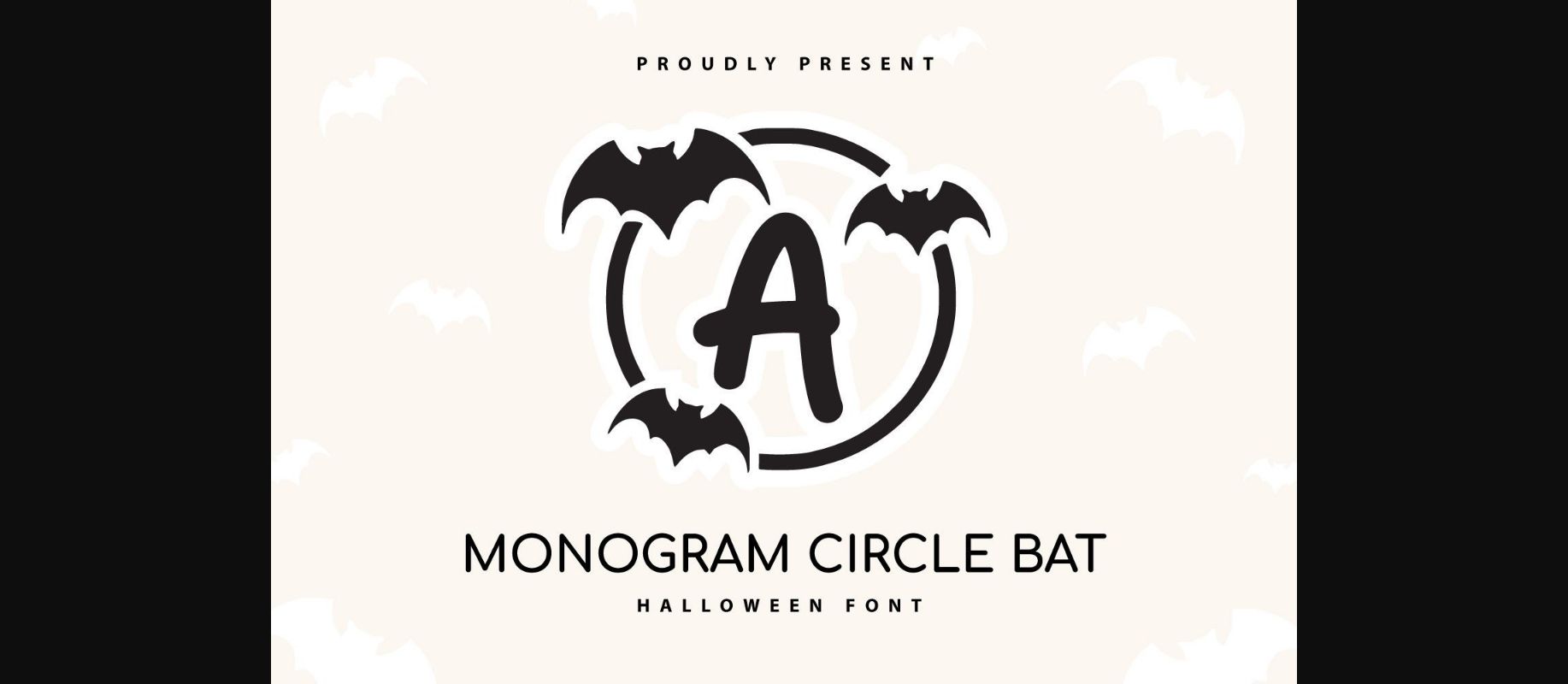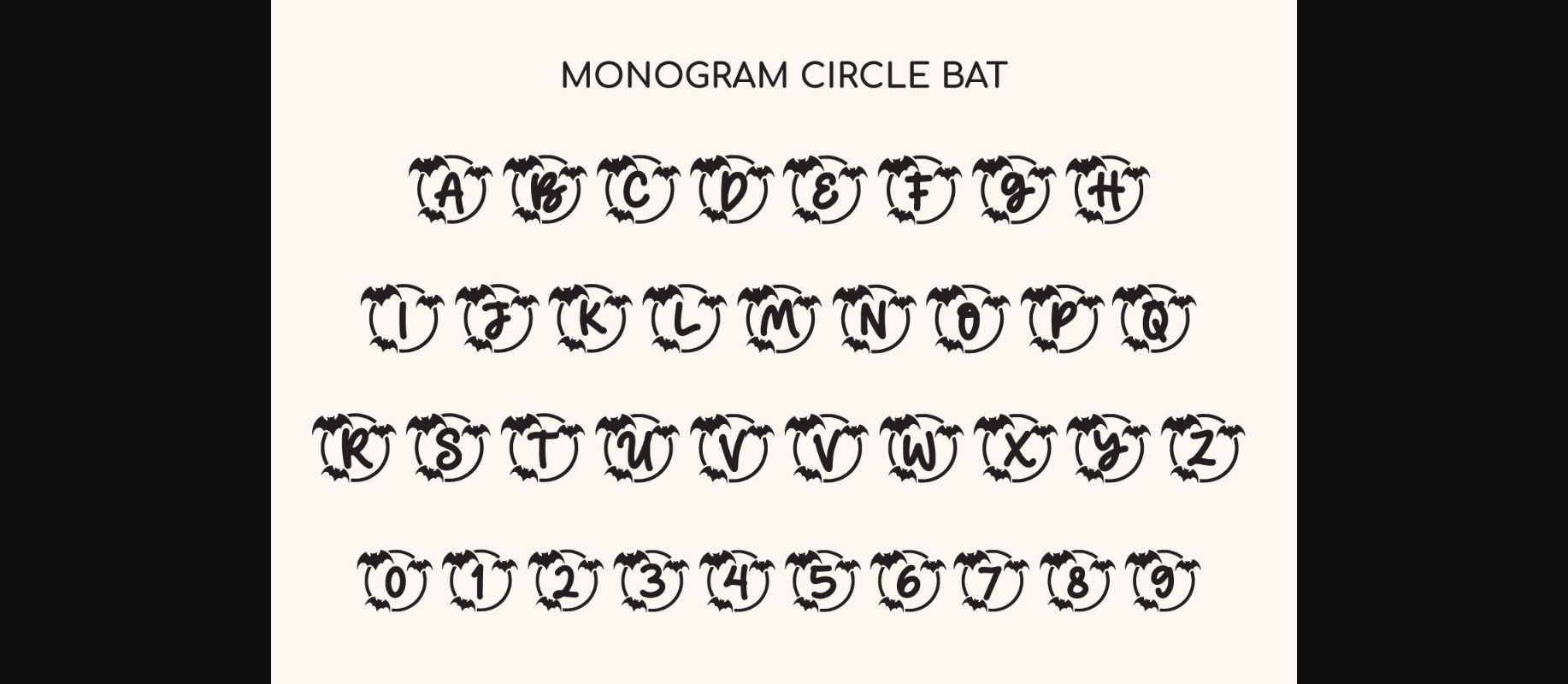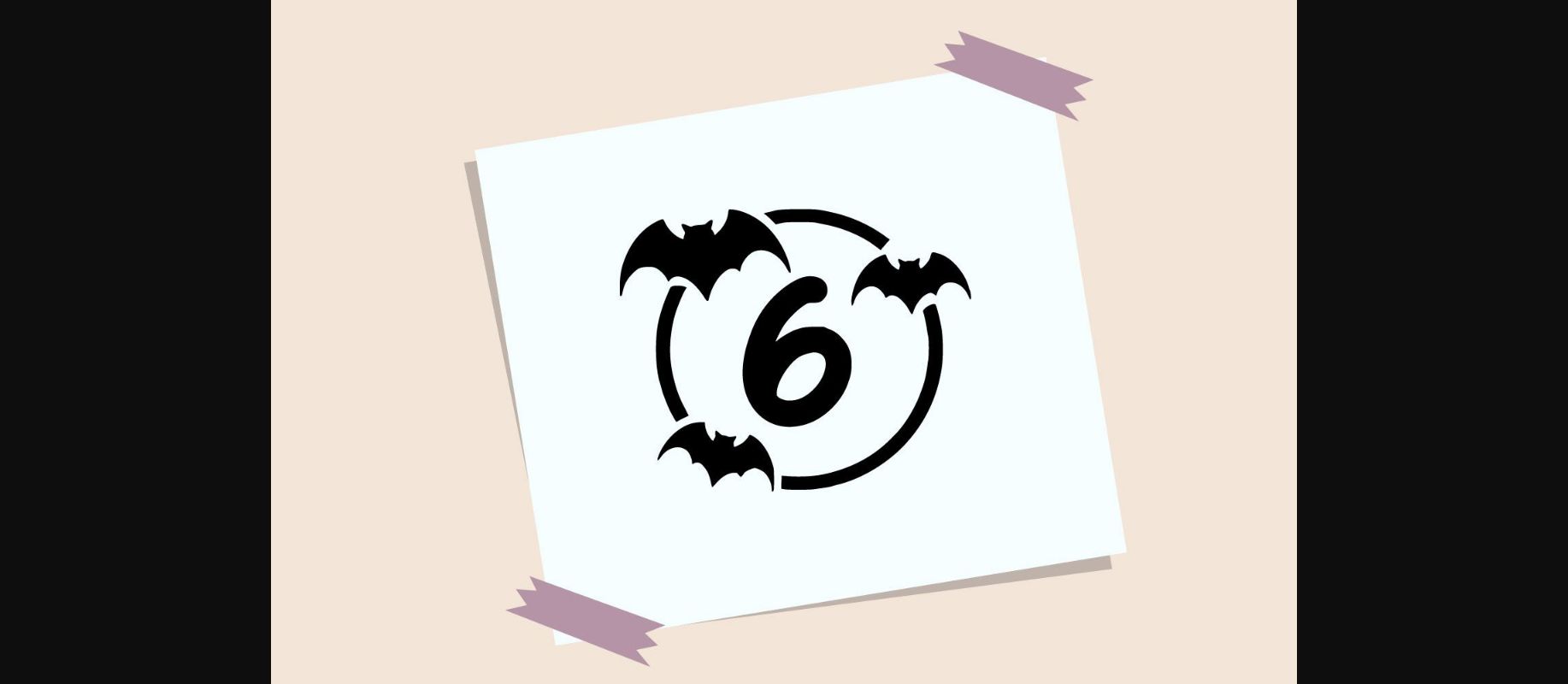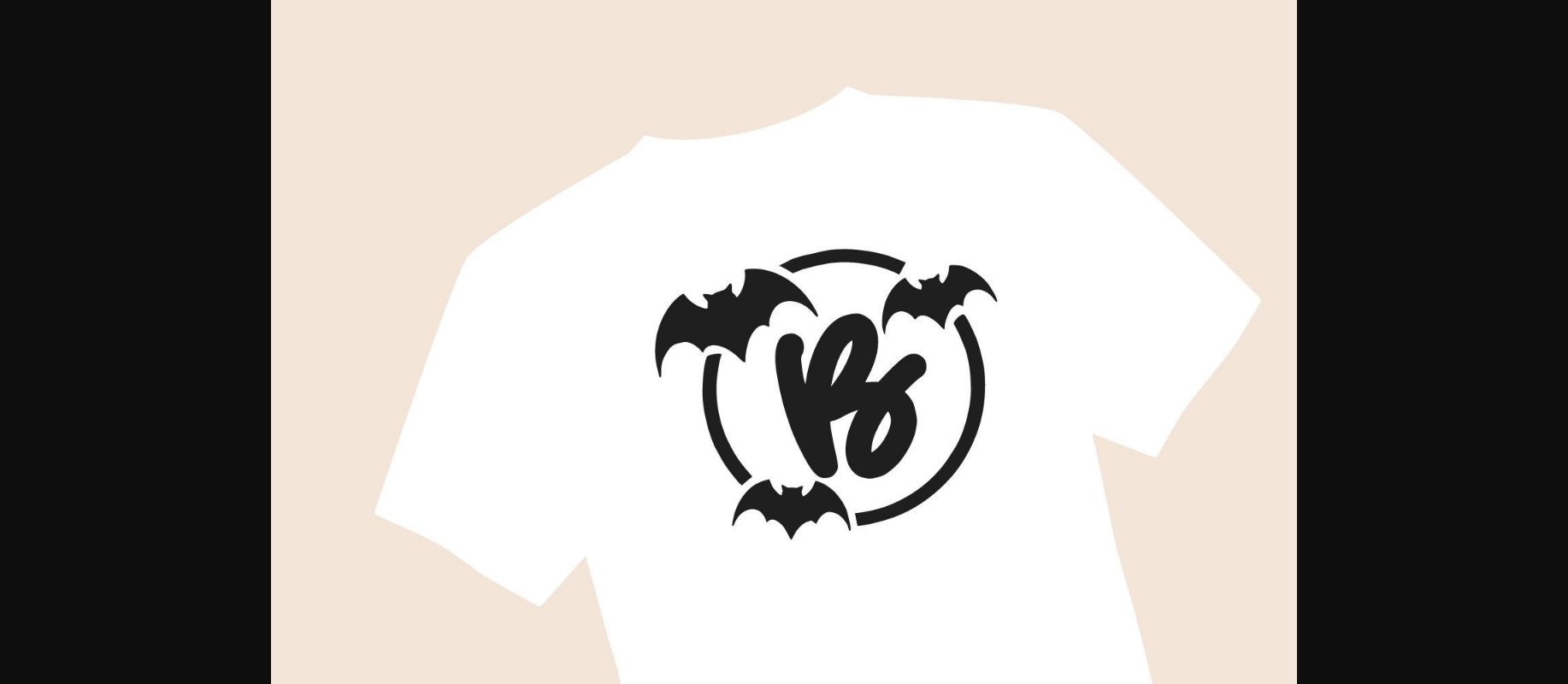
HomeDecorative FontsMonogram Circle Bat Font Decorative Fonts Monogram Circle Bat Font FacebookXPinterestWhatsApp 1 of 6 ... Monogram Circle Bat Font Poster 2... Monogram Circle Bat Font Poster 3... Monogram Circle Bat Font Poster 4... Monogram Circle Bat Font Poster 5... Monogram Circle Bat Font Poster 6... About Monogram Circle Bat Font Monogram Circle Bat is a cute monogram font, perfect for your Halloween design themes or any project that needs a spooky monogram. DOWNLOAD NOW People also explored Acton Script Font Bullet Journal Font Himalaya Font Simple Wedding Font Adventuros Font Bootlegger Berry Font Angela Font Swavao Font Fleabitten Font 348 0 TagsMonogram Circle Bat Font Previous articleBellchime Christmas Monogram FontNext articleChristmas Monogram Font LEAVE A REPLY Cancel reply Comment: Please enter your comment! Name:* Please enter your name here Email:* You have entered an incorrect email address! Please enter your email address here Website: Save my name, email, and website in this browser for the next time I comment. Personal Use Free Archeology Personal Use Free Read more about this font Roustel Personal Use Free Read more about this font Histeria Bites Personal Use Free Read more about this font Propaganda Personal Use Free Read more about this font BLOG Where to Buy American Fonts Online in 2024 Where to Buy American Fonts Online: The Ultimate Guide for 2024 Looking for the perfect American font to elevate your design projects? You're in the... The 10 Best Handwriting Fonts to Add Personality to Your Designs Top 7 Google Fonts Alternatives for Faster and Privacy-Friendly Web Design (2025) Best Fonts for T-Shirt Design – Top 2025 Picks